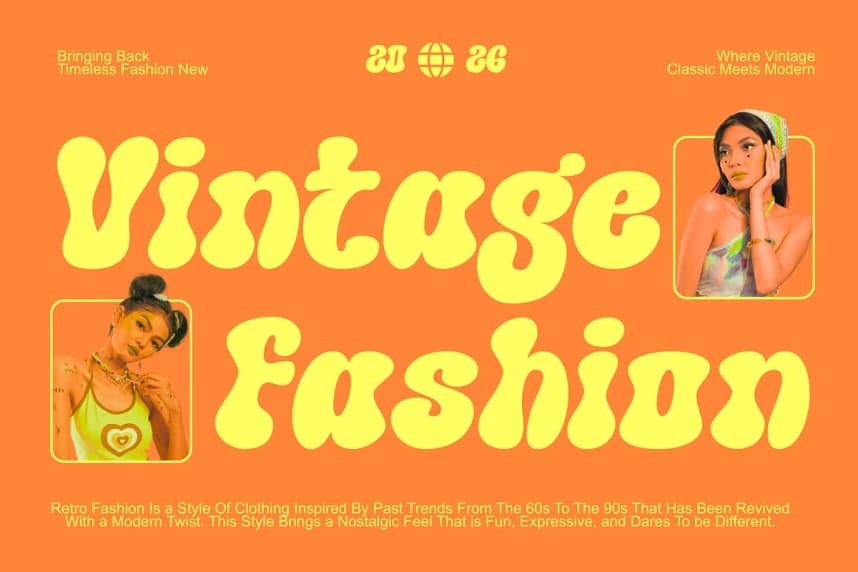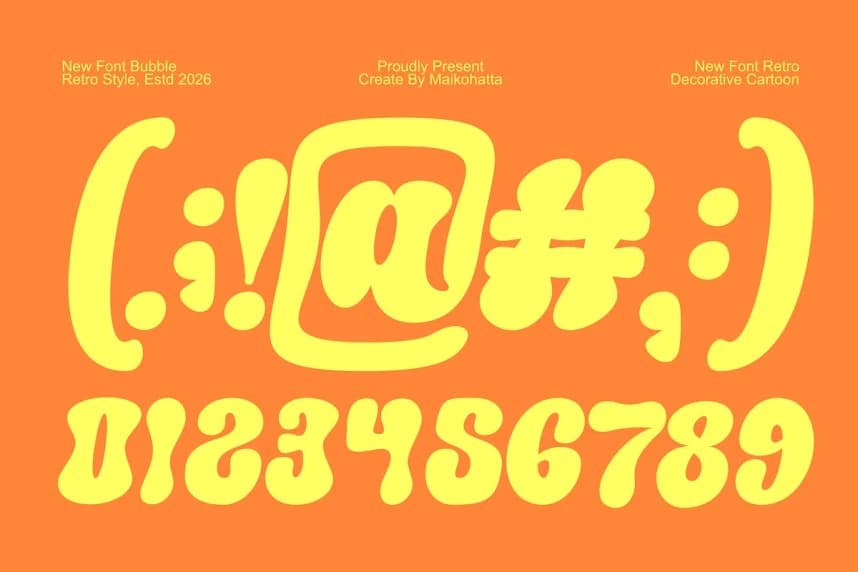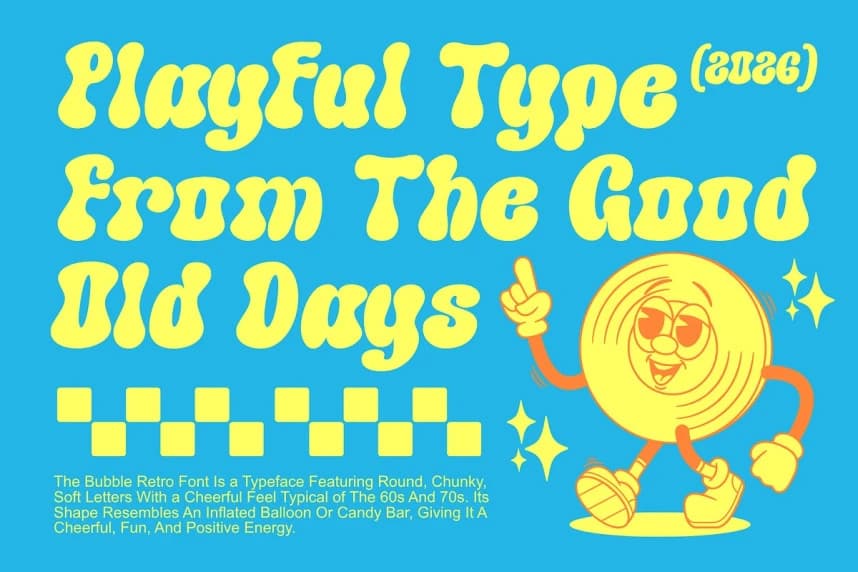
Meppid Playful Font
Meppid Playful Font is a cheerful and playful retro bubble font that brings a joyful vintage vibe to your designs. Inspired by groovy 70s aesthetics, this typeface features soft, rounded, and bold letterforms that resemble fluffy bubbles, creating a fun and friendly visual appeal.